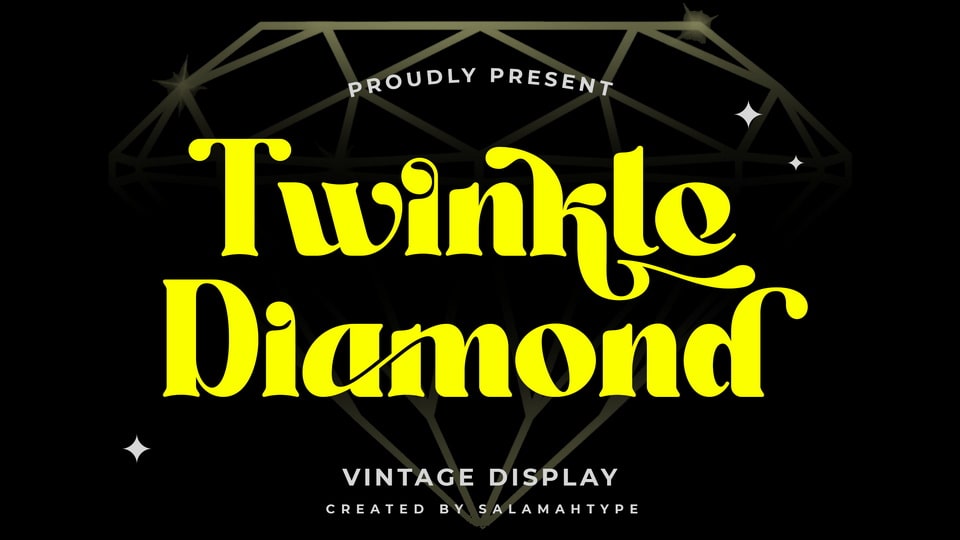
Download Twinkle Diamond font, an elegant, classic styled typeface with lots of alternates and ligatures make this font even more unique, perfect for creating logos, magazines, story titles.